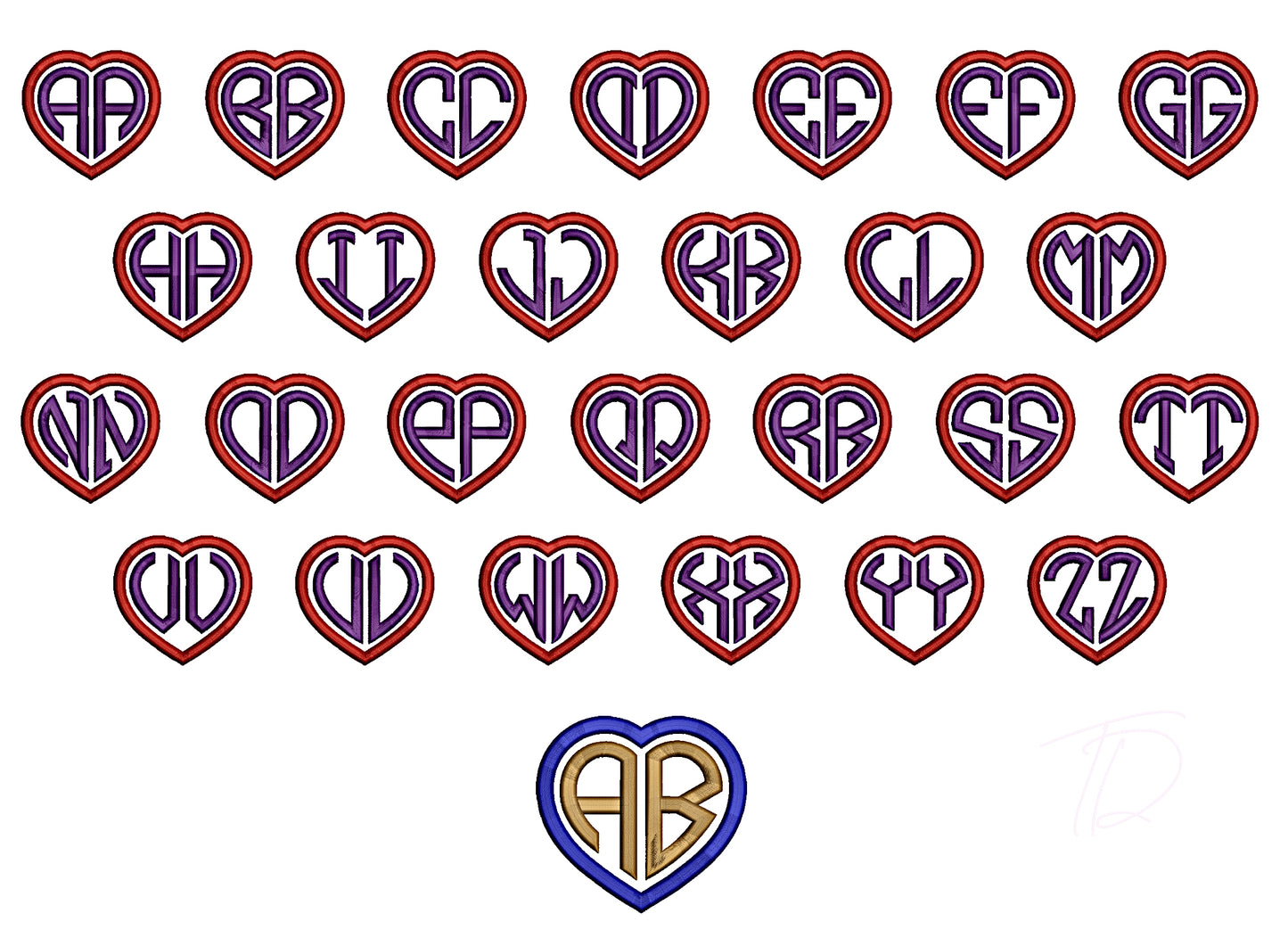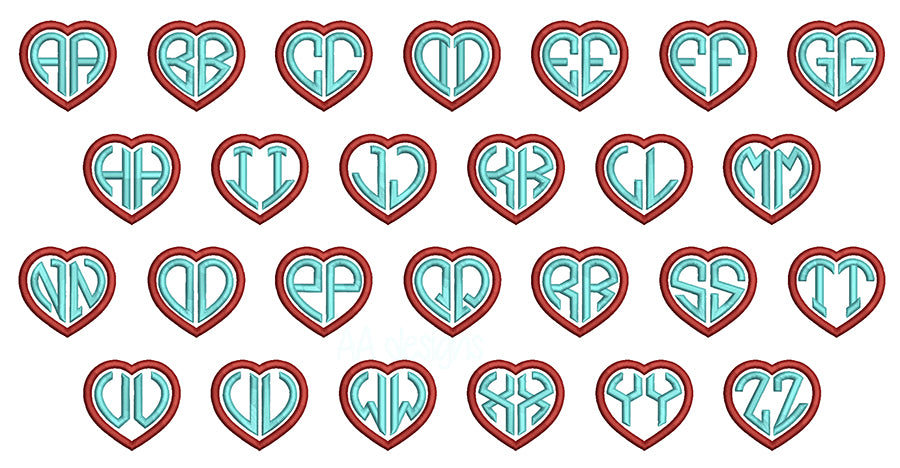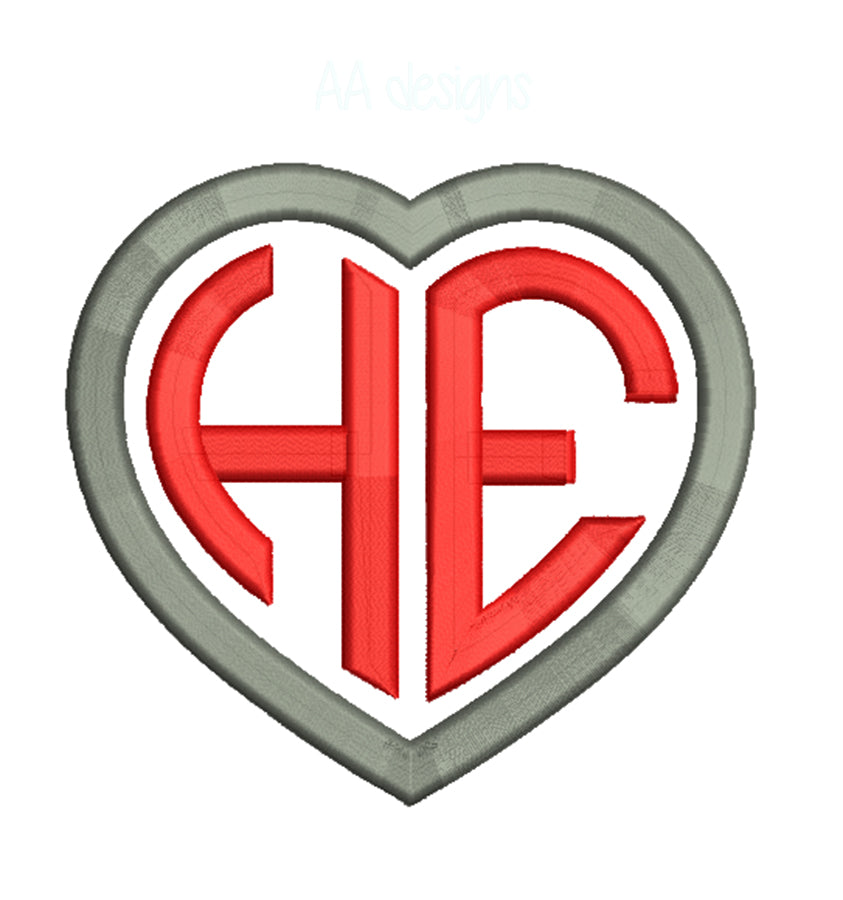
Heart embroidery digital font. Heart monogram in 3D puff foam. BX PES DST embroidery font
Heart embroidery digital font
This font comes with letters in 3 sizes, A-Z